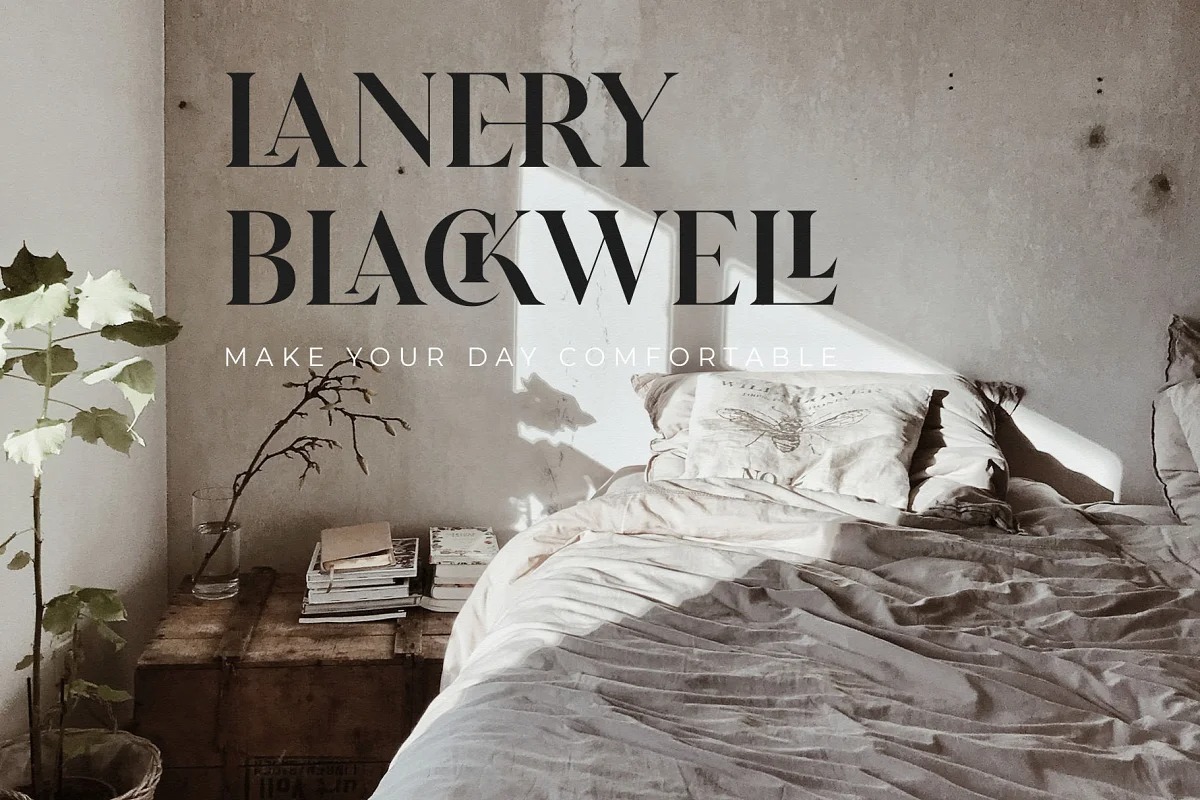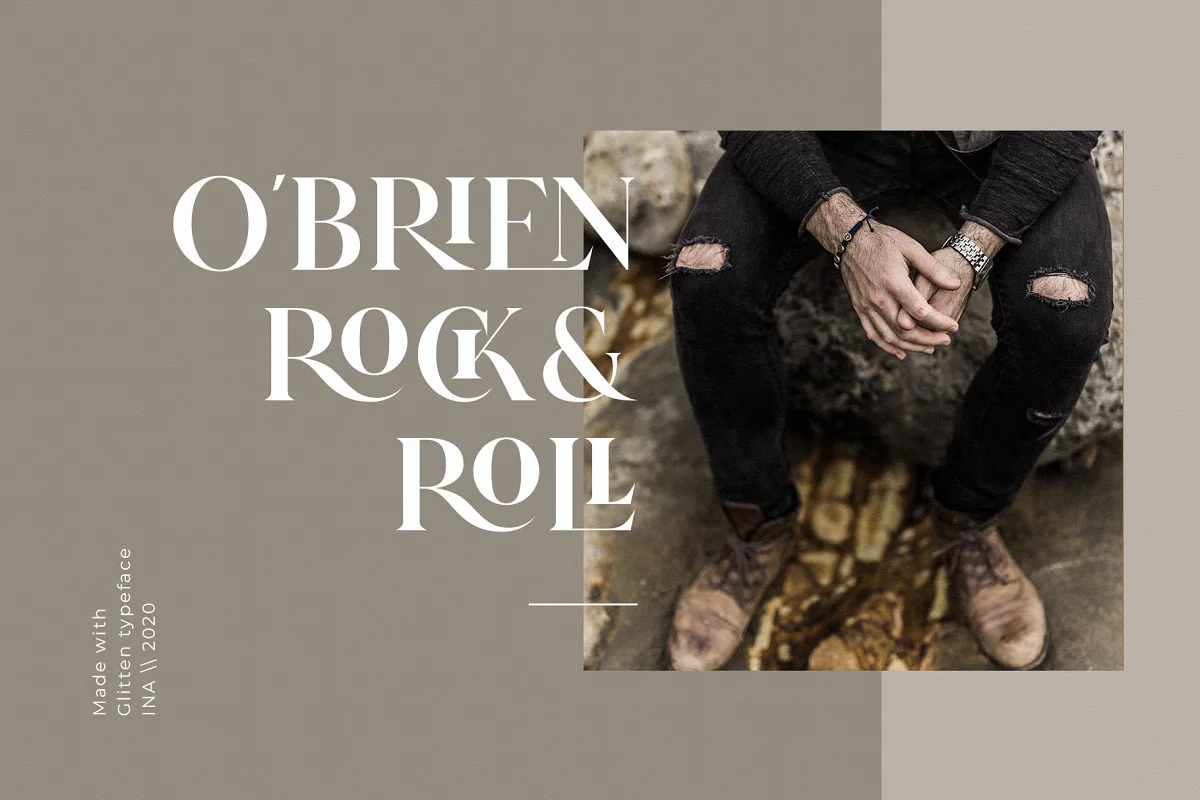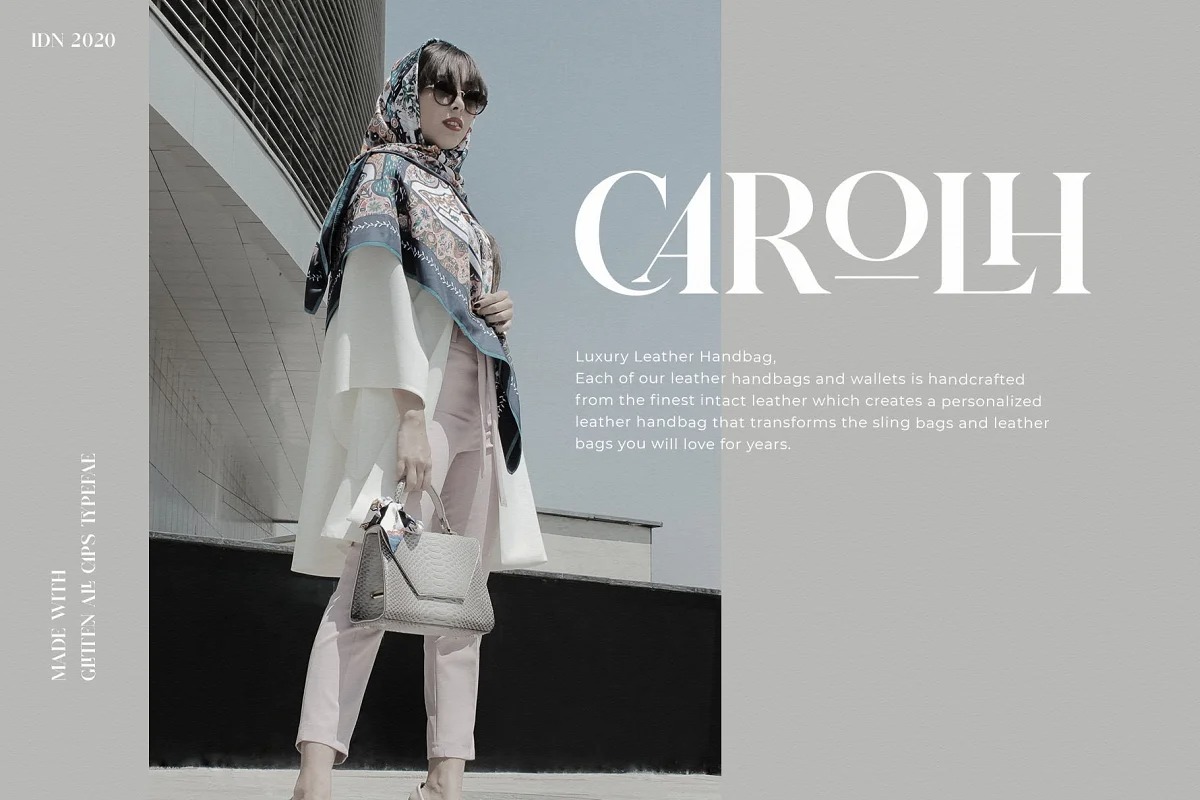
Glitten All Caps Typeface
This is an unique font that uses ligatures to smoothly link letters. Already matched up and ready to be used together for your next design! For those of you who are needing a touch of elegant, stylish, classy, chic and modernity for your designs, this font was created for you! Glitten All Caps was built with OpenType features and includes 33 ligatures, numbers, punctuation, and it also supports other languages.